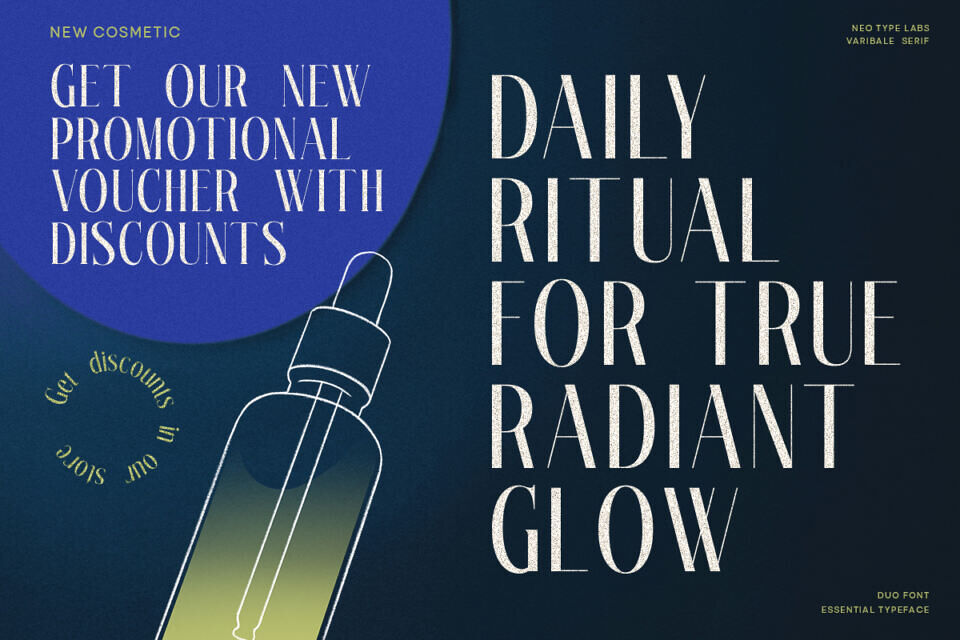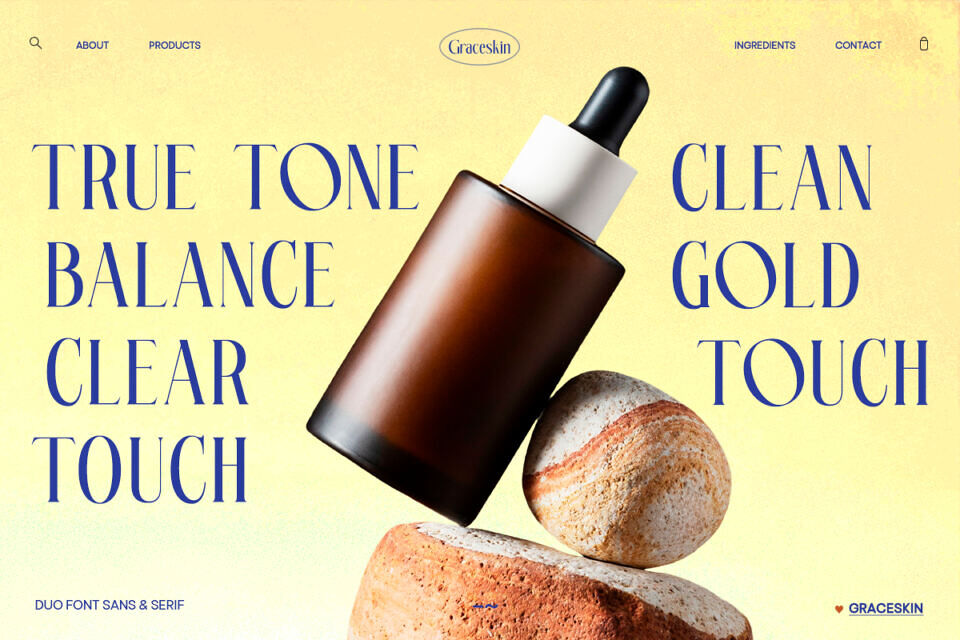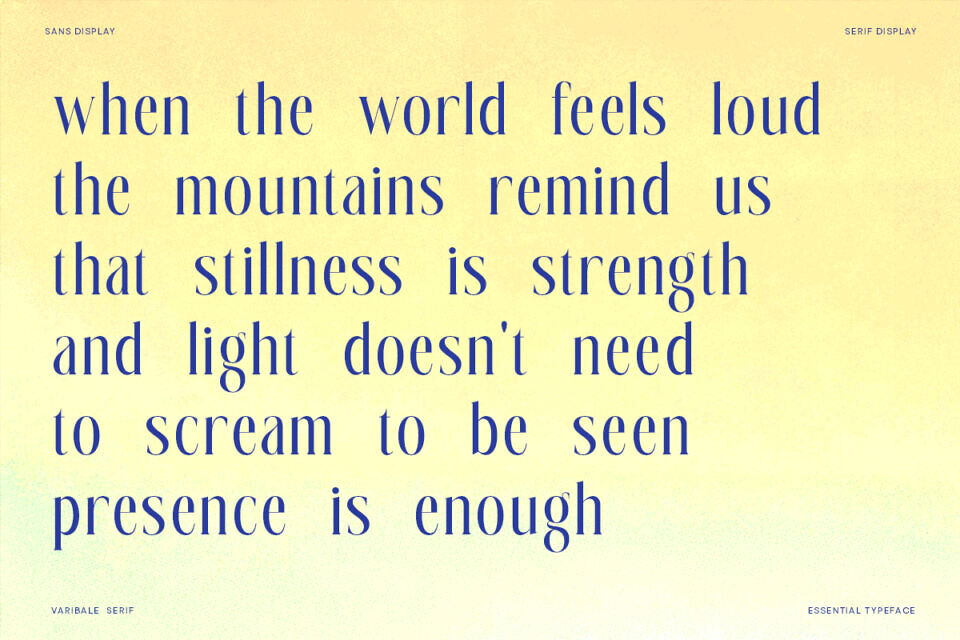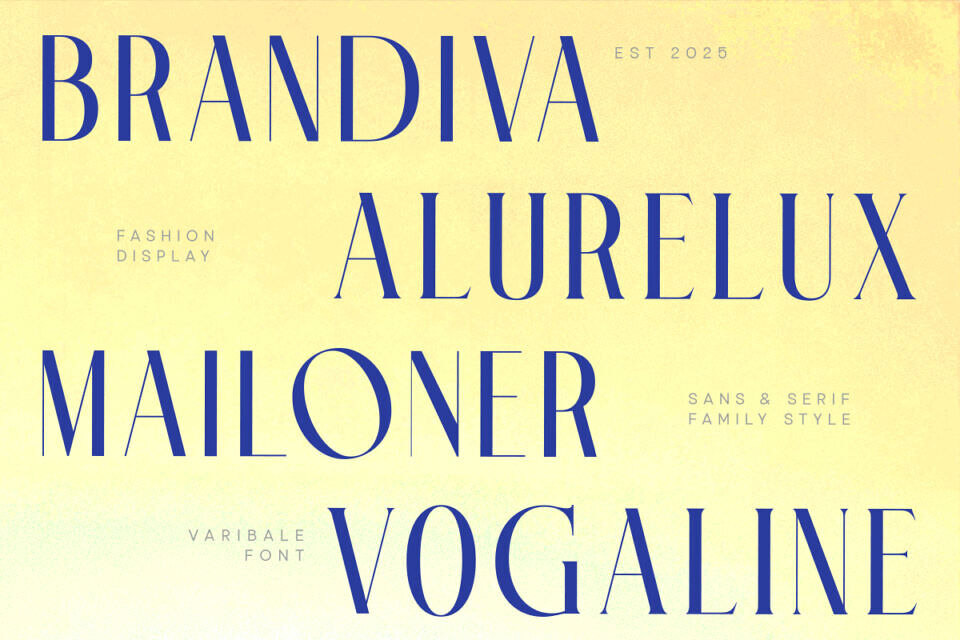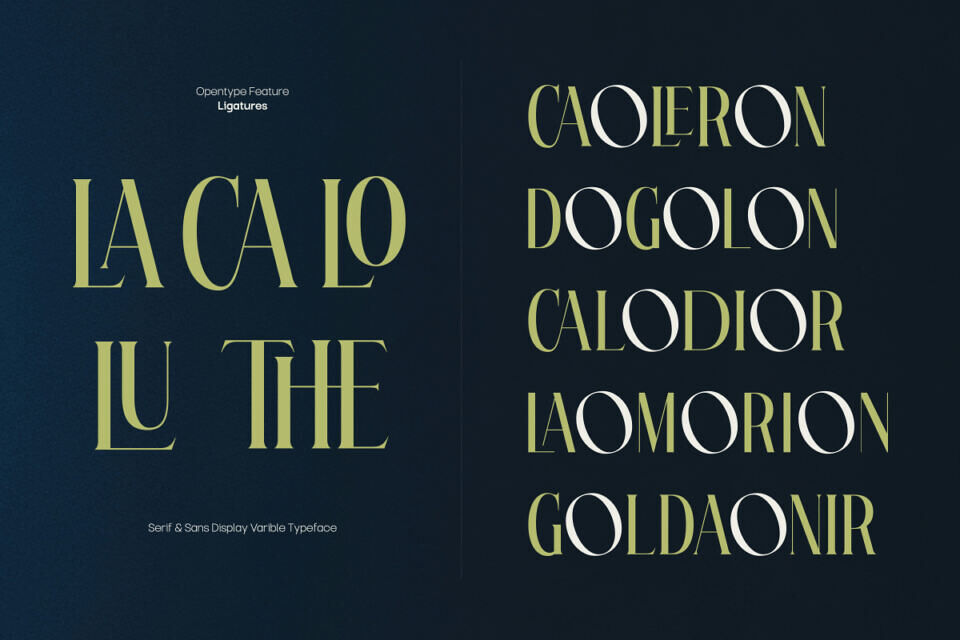
NT Ubuntu Font
NT Ubuntu is a versatile variable font that seamlessly blends the elegance of serif with the clarity of sans serif—giving designers complete freedom to craft a typographic voice that fits any purpose.
With its intelligent variable settings, you can customize your own style, transitioning fluidly between modern minimalism and classic editorial warmth. Whether you’re working on branding, digital interfaces, or expressive editorial layouts, NT Ubuntu adapts to your creative needs with precision.
From bold headlines to refined body text, NT Ubuntu empowers your design with both functional clarity and typographic character. It’s not just a font—it’s a flexible system built to match your aesthetic.